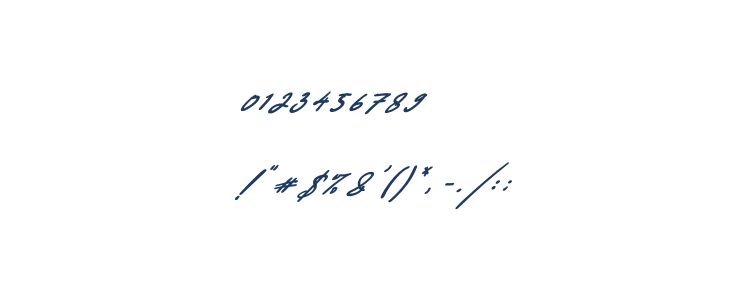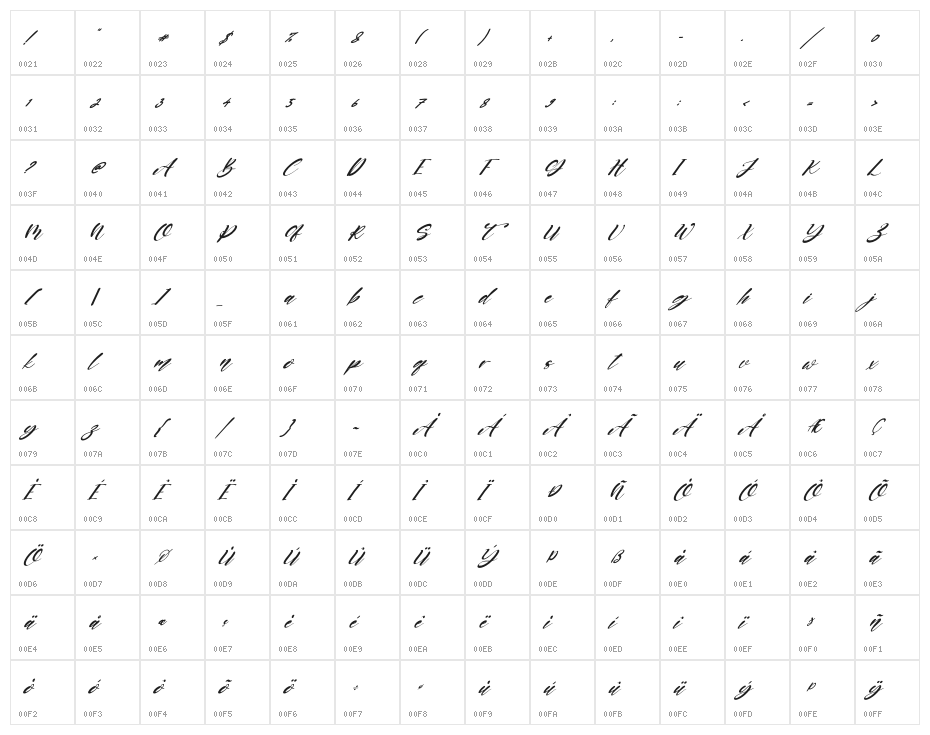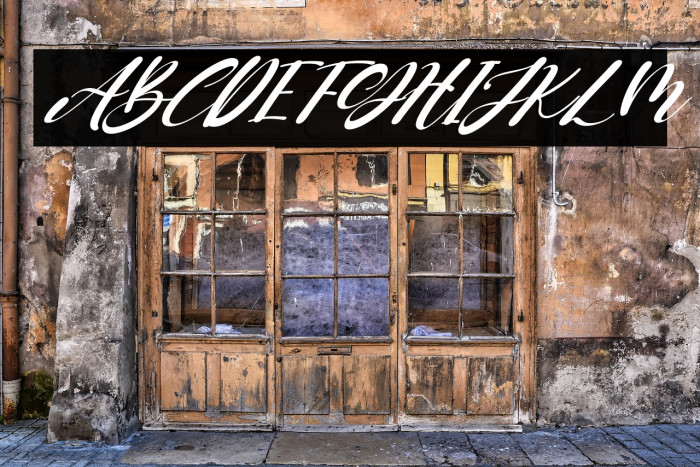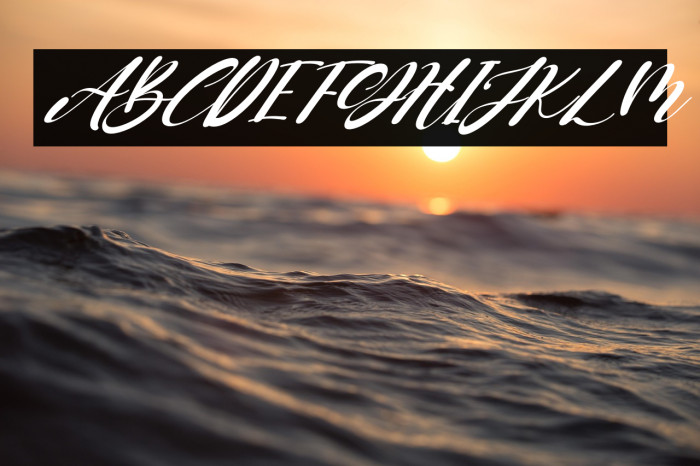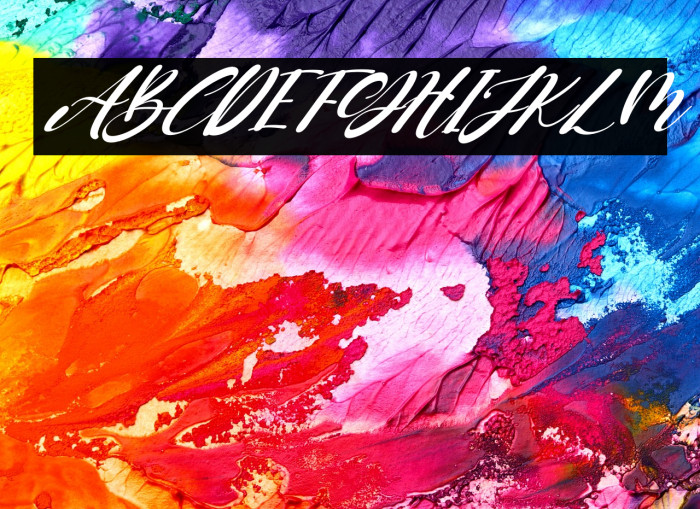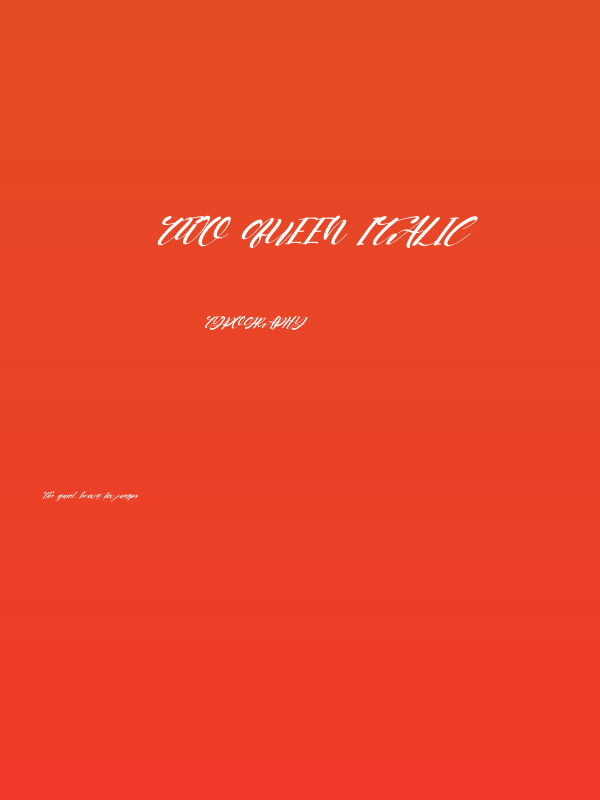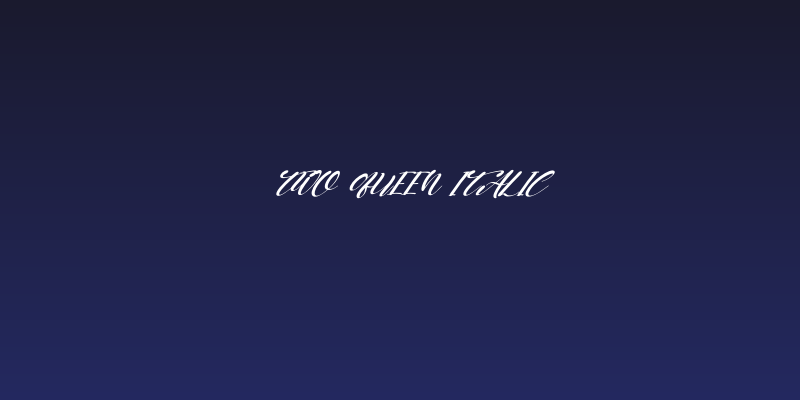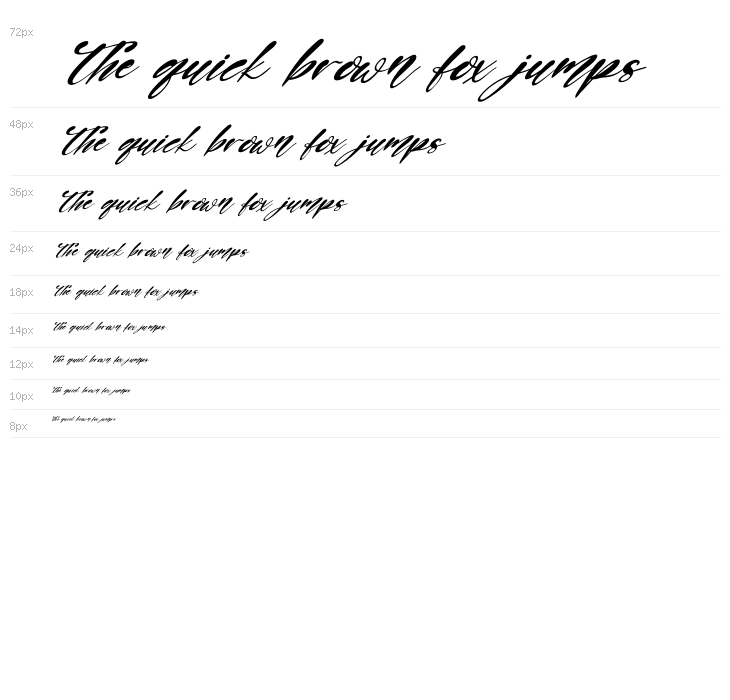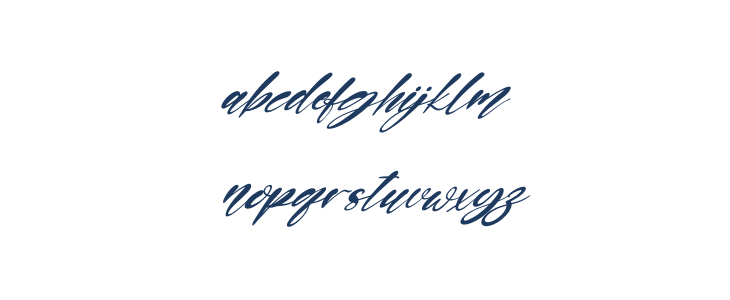
Two Queen Italic Font
Two Queen Italic Description
This elegant script font features a flowing, cursive style with a distinct italic slant. The characters are intricately designed, showcasing a harmonious blend of thick and thin strokes that add a dynamic and sophisticated touch. The uppercase letters are bold and sweeping, while the lowercase letters maintain a graceful continuity, making it ideal for conveying elegance and flair. The numerals and special characters are crafted with the same attention to detail, ensuring consistency throughout the typeface. This font exudes a sense of luxury and refinement, making it perfect for projects that require a touch of class.
| Overall Style | Elegant, Luxurious |
| Proposed Projects | Ideal for wedding invitations, luxury branding, elegant logos, and high-end product packaging. |